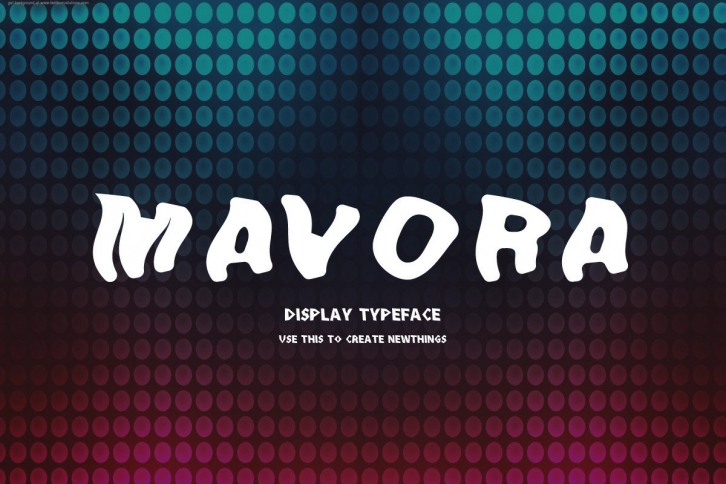
Mavora is a cool, wavy, and modern display font. No matter the topic, this font will be an incredible asset to your fonts’ library, as it has the potential to elevate any creation.